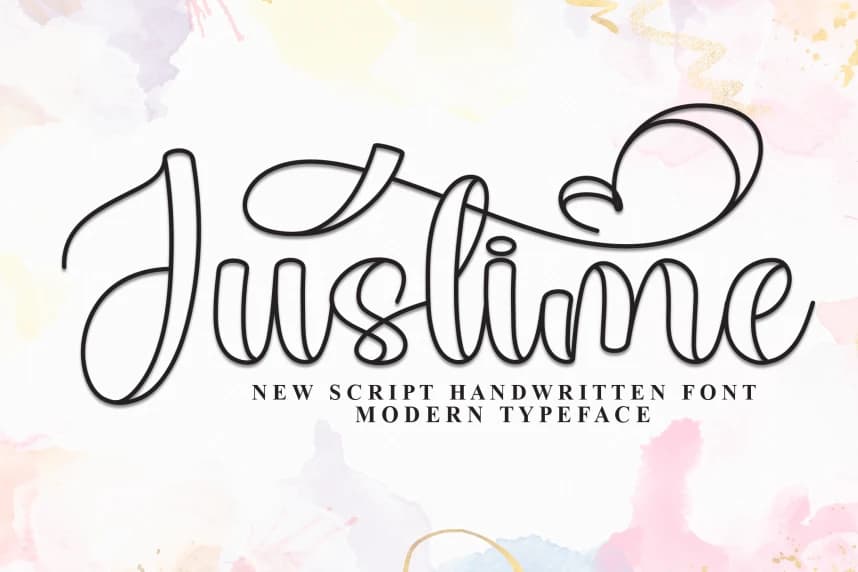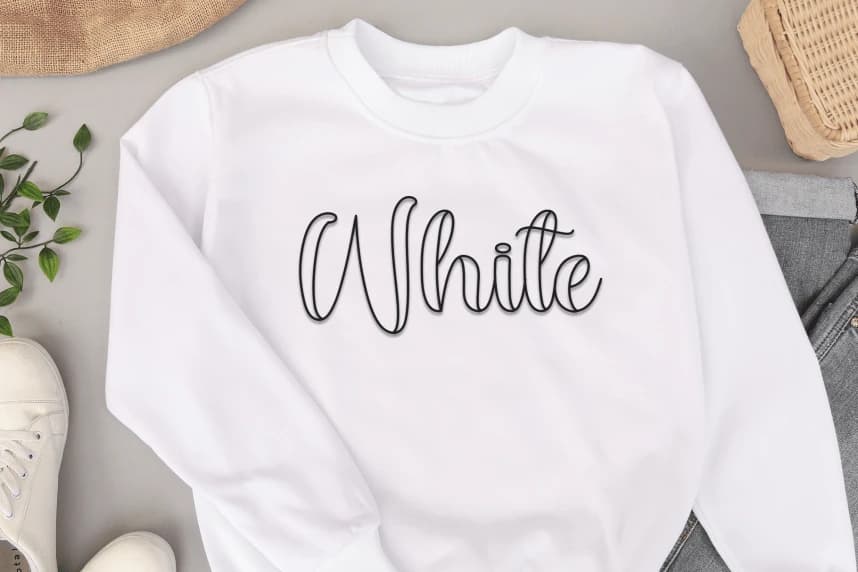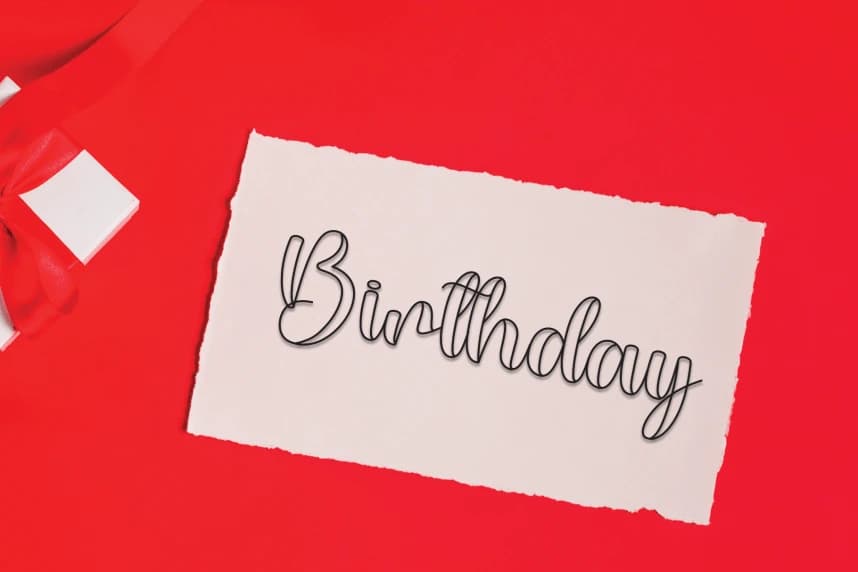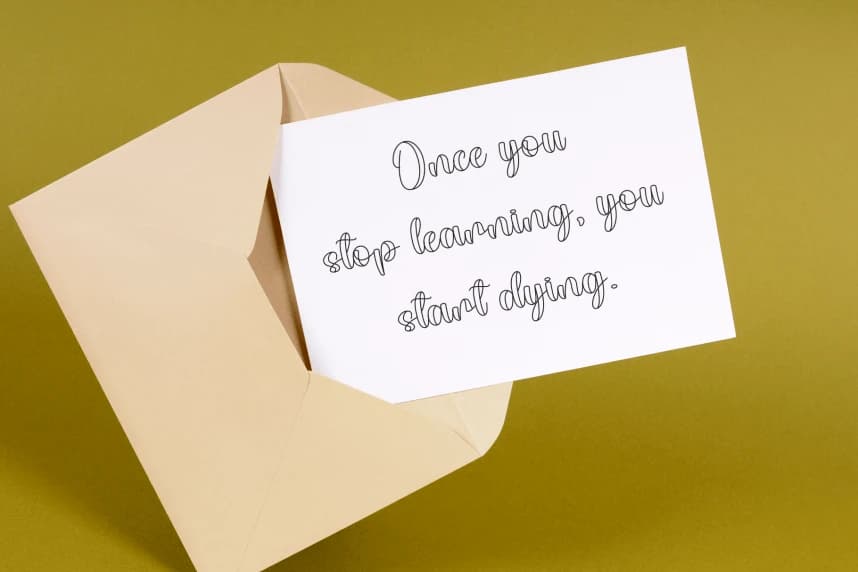
Justime – Casual Handwritten Script Font
Justime – Casual Handwritten Script Font is a sweet and friendly handwritten display font. Cute and fun, this font is ideal for writing wedding invitations, cards, or any other design that might need a playful touch!